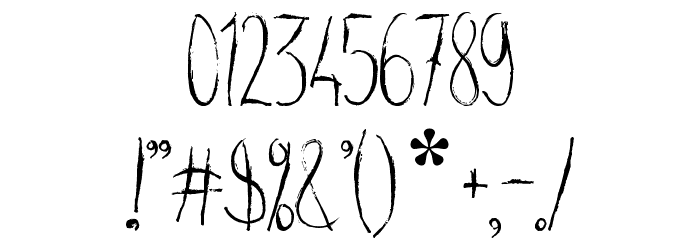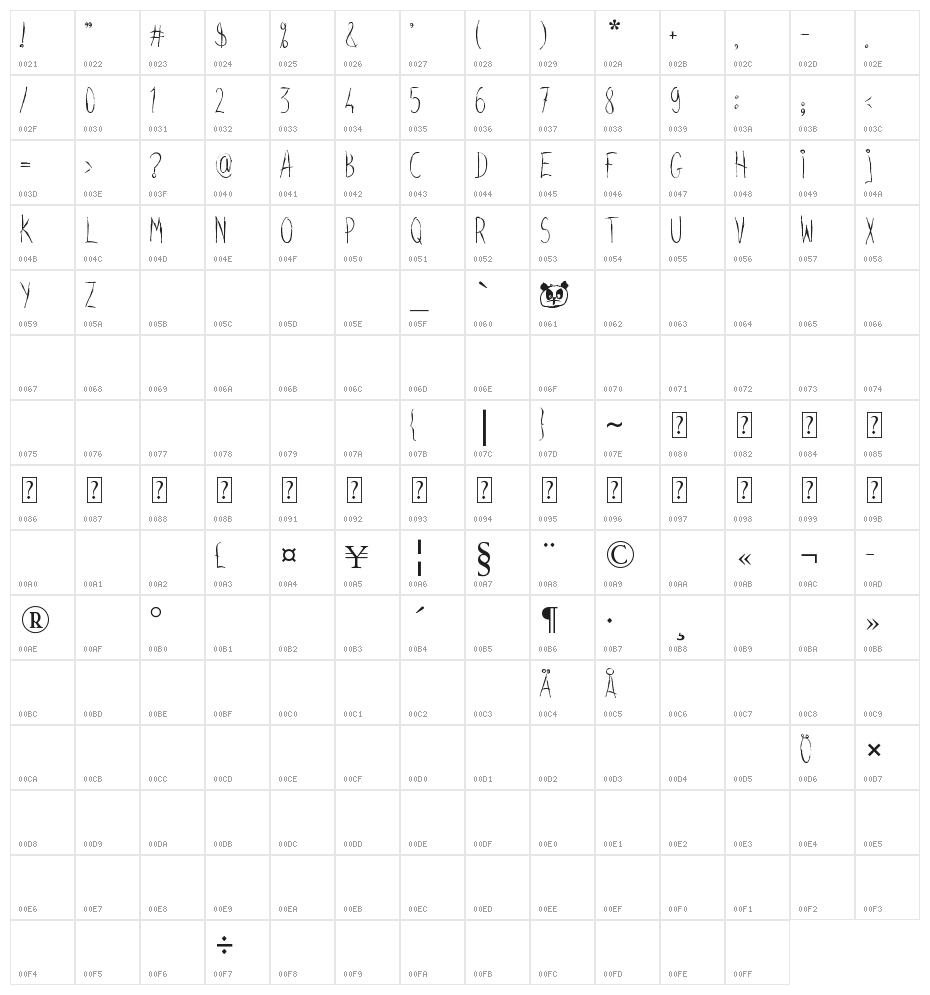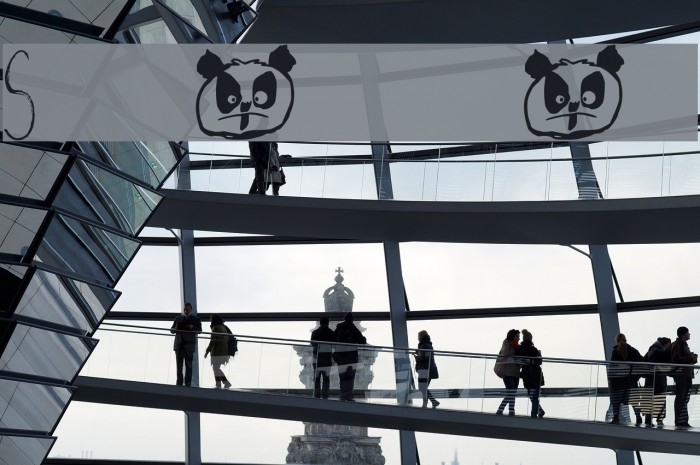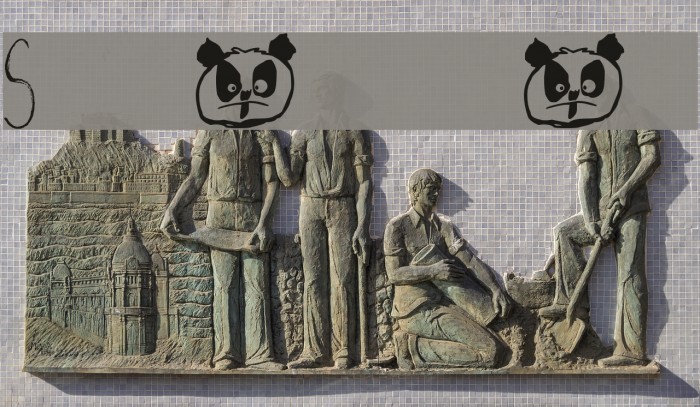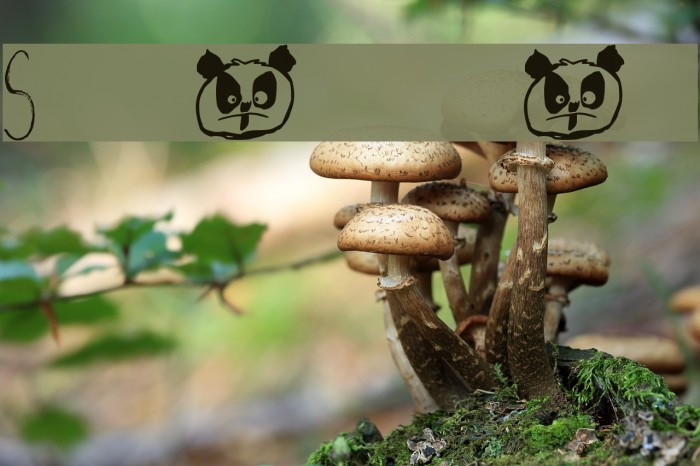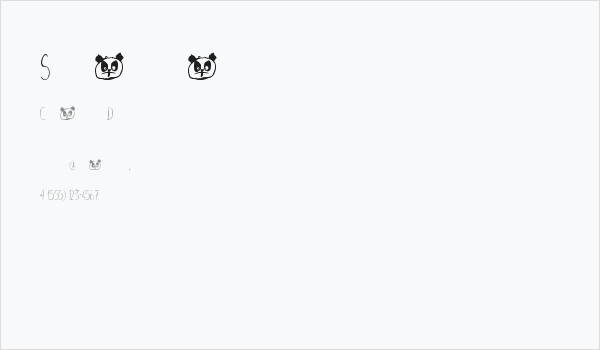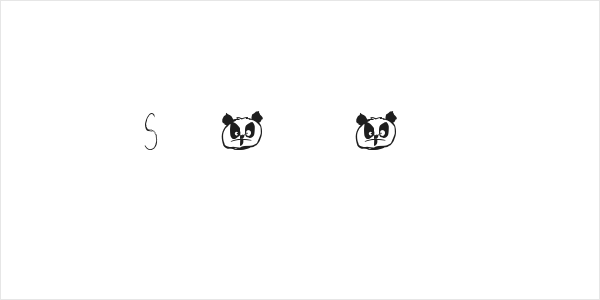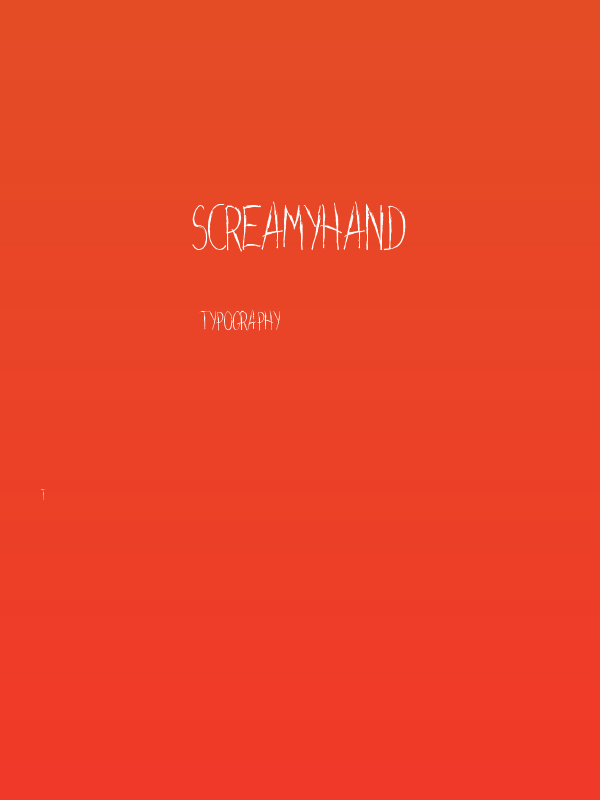
Screamyhand Font
Screamyhand Description
This font features a playful and quirky design with a hand-drawn aesthetic. The letters are irregular and slightly distorted, giving a whimsical and informal feel. The strokes are uneven, with some letters having exaggerated curves and angles. This style is reminiscent of doodles or sketches, adding a sense of spontaneity and creativity. The font includes uppercase and lowercase letters, numbers, and a variety of special characters, each maintaining the same lively and dynamic appearance.
MadPandaFonts - Lasse Γrling
| Use Case | Logos, Posters, Creative projects |
| Proposed Projects | Ideal for children's books, comic strips, playful branding, and creative posters. |